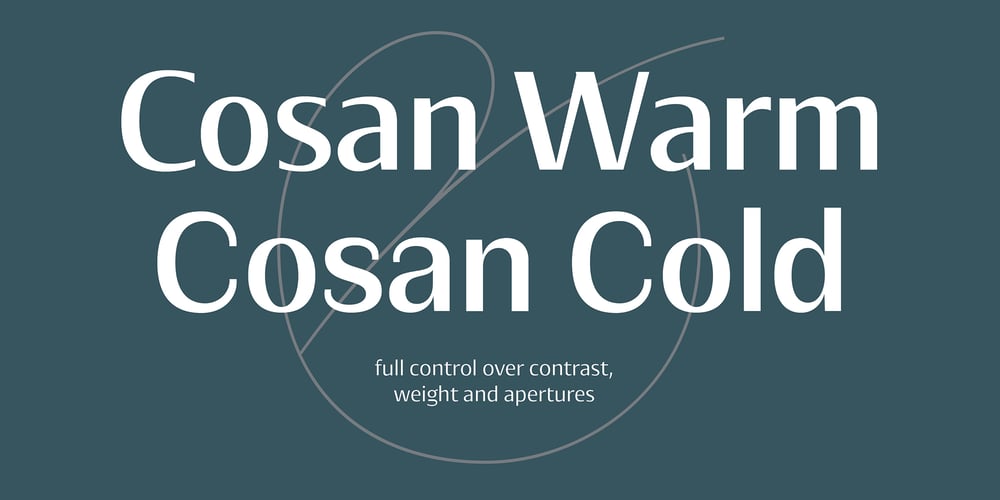
Cosan Font Family was designed by Andrej Dieneš and published by Adtypo. Cosan contains 74 styles and family package options. The idea was to find common intersections between the humanistic and the neo-grotesque model of sans. This variable font offers everything from the world of sans serif in one place – a broad range of weights, adjustable contrast, and a lot of alternative glyphs. As a bonus, you can choose the “cold” or “warm” impact of the text. The Cosan Cold variant has closed apertures and minimal tension in the manner of Helvetica, and the Cosan Warm is open, more dynamic, and airy. Cosan is very suitable for a parallel bilingual setting, as both types are equivalent in their proportions and text color. Like Yin and Yang, each has a piece of the other in him. The Warm version is not totally dynamic, nor is the Cold version totally rigid.